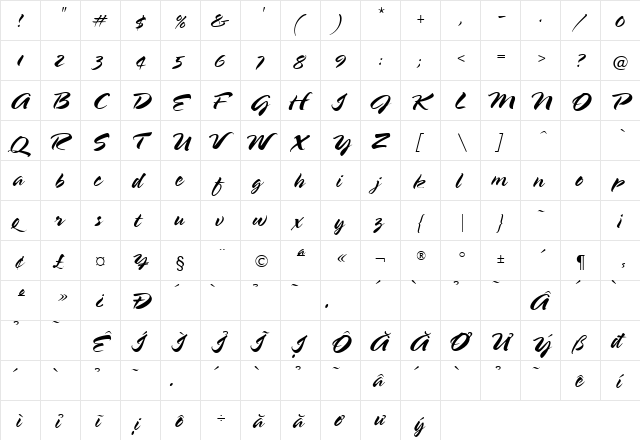
HL Brush 2BK Regular Font Preview
HL Brush 2BK Regular
Design Context for HL Brush 2BK Typeface
HL Brush 2BK flows with the natural rhythm of handwritten lettering, making it ideal for designs that call for warmth and personal expression.